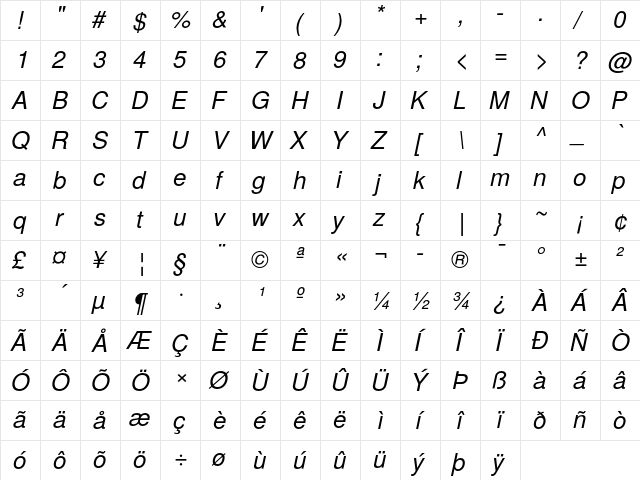
TeX Gyre Heros Italic Font Preview
TeX Gyre Heros Italic
Design Context for TeX Gyre Heros Typeface
TeX Gyre Heros is a composed and adaptable typeface that performs quietly and consistently across a wide range of design contexts. Its italic angle brings a sense of urgency and motion to the letterforms.
Pro Tip: Use TeX Gyre Heros for emphasis, pull quotes, and subheadings where its slanted energy can add rhythm to the layout.